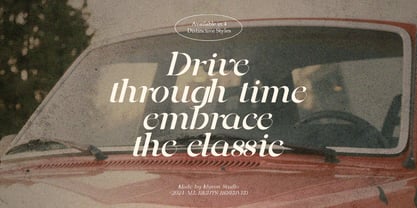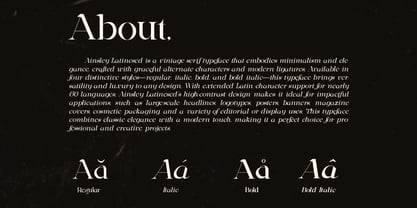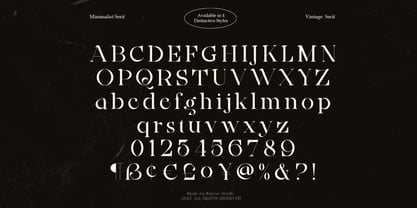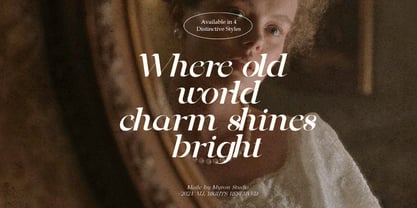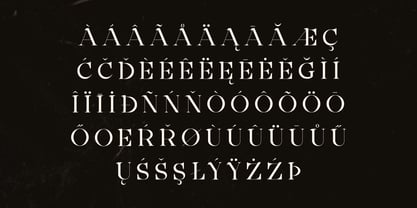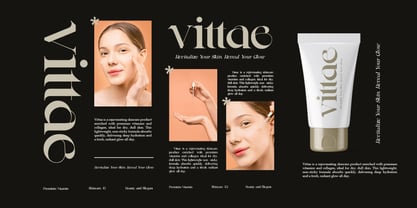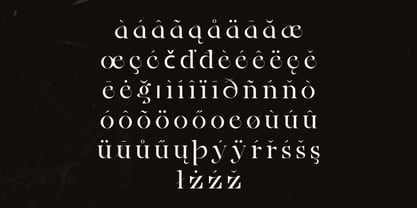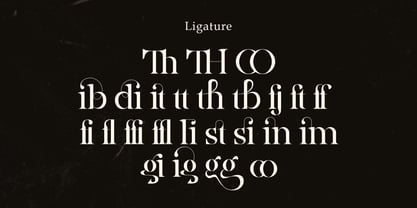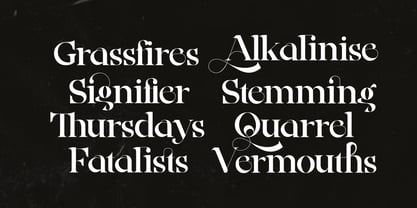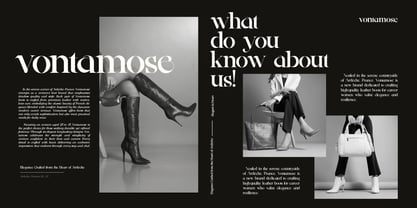
Ainsley Latinesed
by Myron Studio
The Ainsley Latinesed Font Family was designed by and published by Myron Studio. Ainsley Latinesed contains 4 styles and family package options. More about this family
Ainsley Latinesed is a vintage serif typeface that embodies minimalism and elegance, crafted with graceful alternate characters and modern ligatures. Available in four distinctive styles regular, italic, bold, and bold italic this typeface brings versatility and luxury to any design. With extended Latin character support for nearly 70 languages, Ainsley Latinesed’s high-contrast design makes it ideal for impactful applications, such as large-scale headlines, logotypes, posters, banners, magazine covers, cosmetic packaging, and a variety of editorial or display uses. This typeface combines classic elegance with a modern touch, making it a perfect choice for professional and creative projects.
Ainsley Latinesed